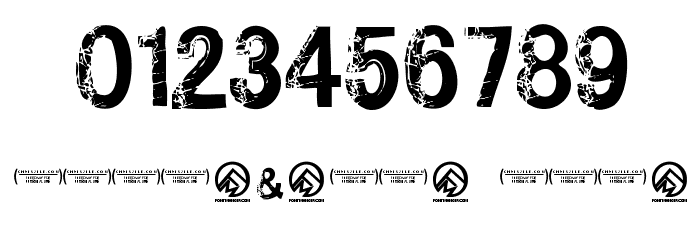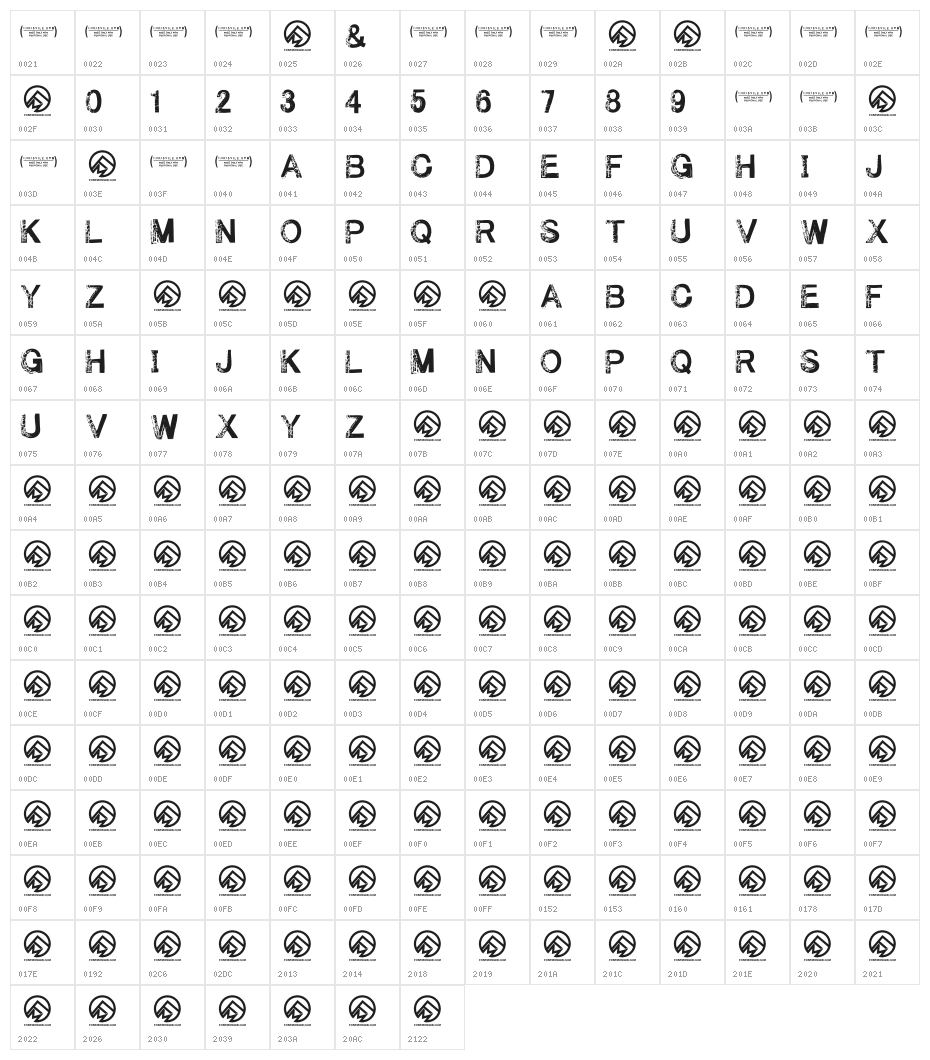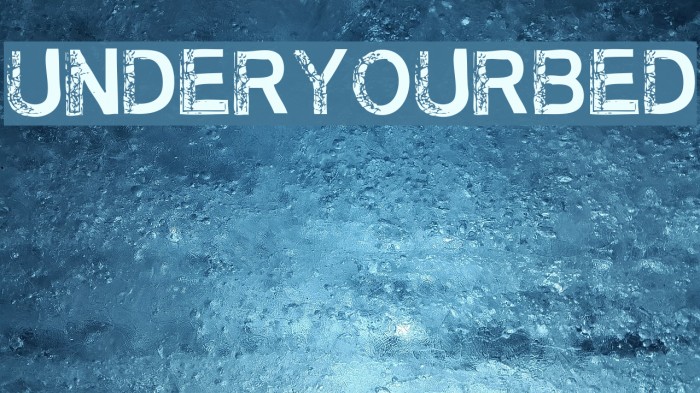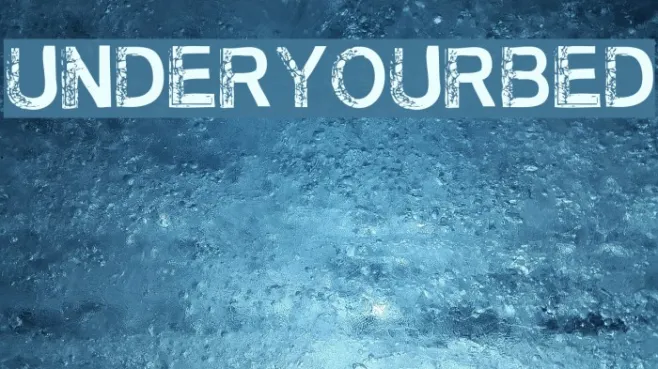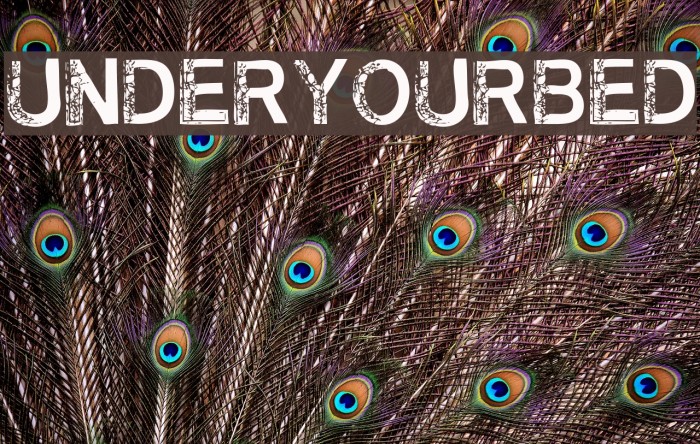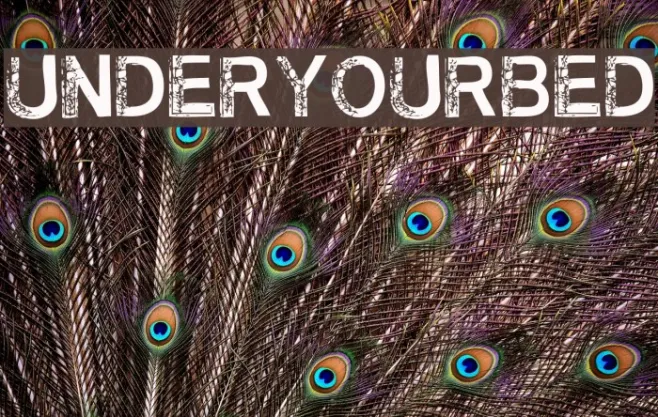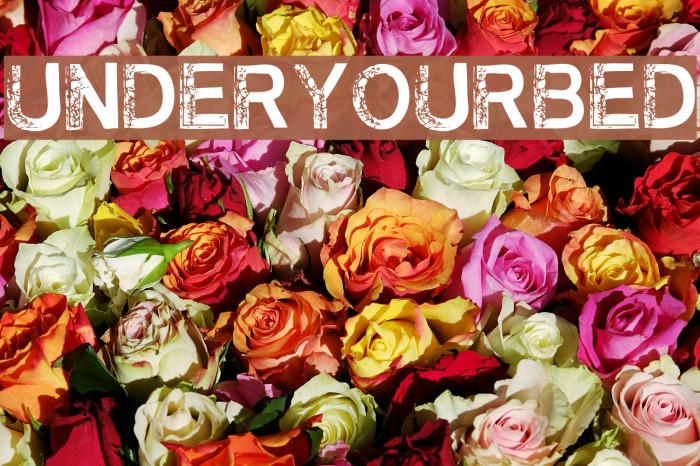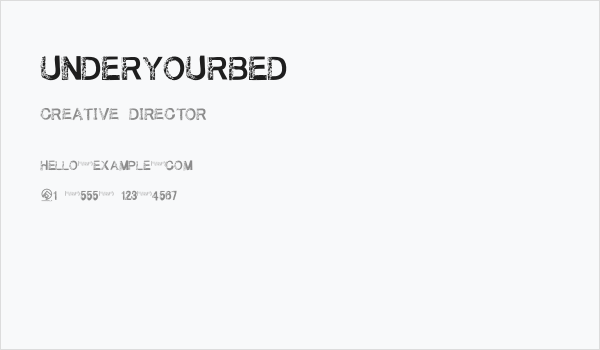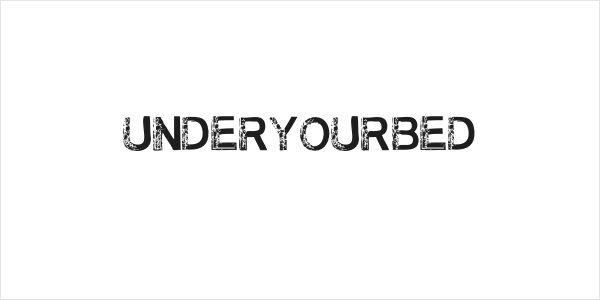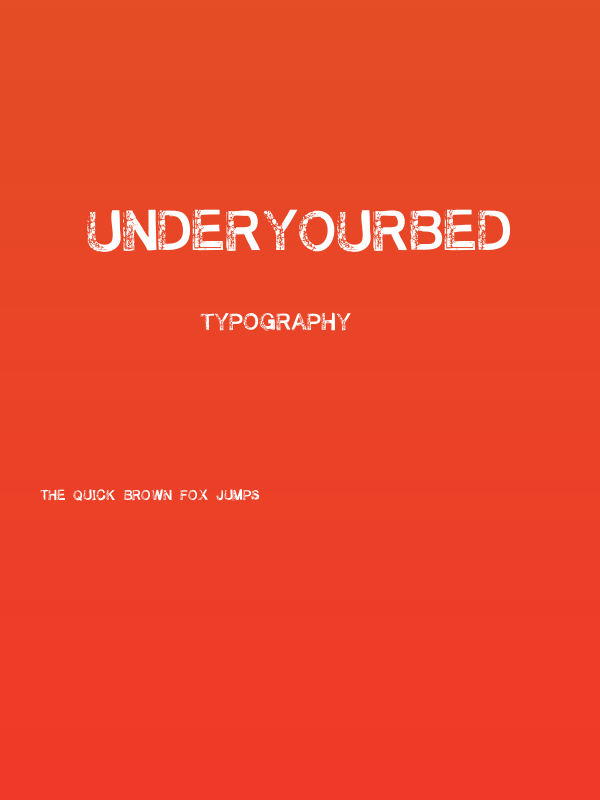
UnderYourBed Font
UnderYourBed Description
This font features a distressed, grunge aesthetic with a bold and impactful presence. Each character is designed with a textured, worn-out look, giving it a rugged and edgy feel. The uppercase and lowercase letters maintain a consistent style, with rough edges and uneven surfaces that add to its unique character. The numerals and special characters follow the same design, ensuring uniformity across all glyphs. This font is perfect for projects that require a raw, urban vibe, such as album covers, posters, or branding for alternative or punk-themed events.
| Overall Style | Grunge, Urban, Edgy |
| Proposed Projects | Ideal for album covers, posters, branding for alternative events, or any project needing an edgy, urban feel. |